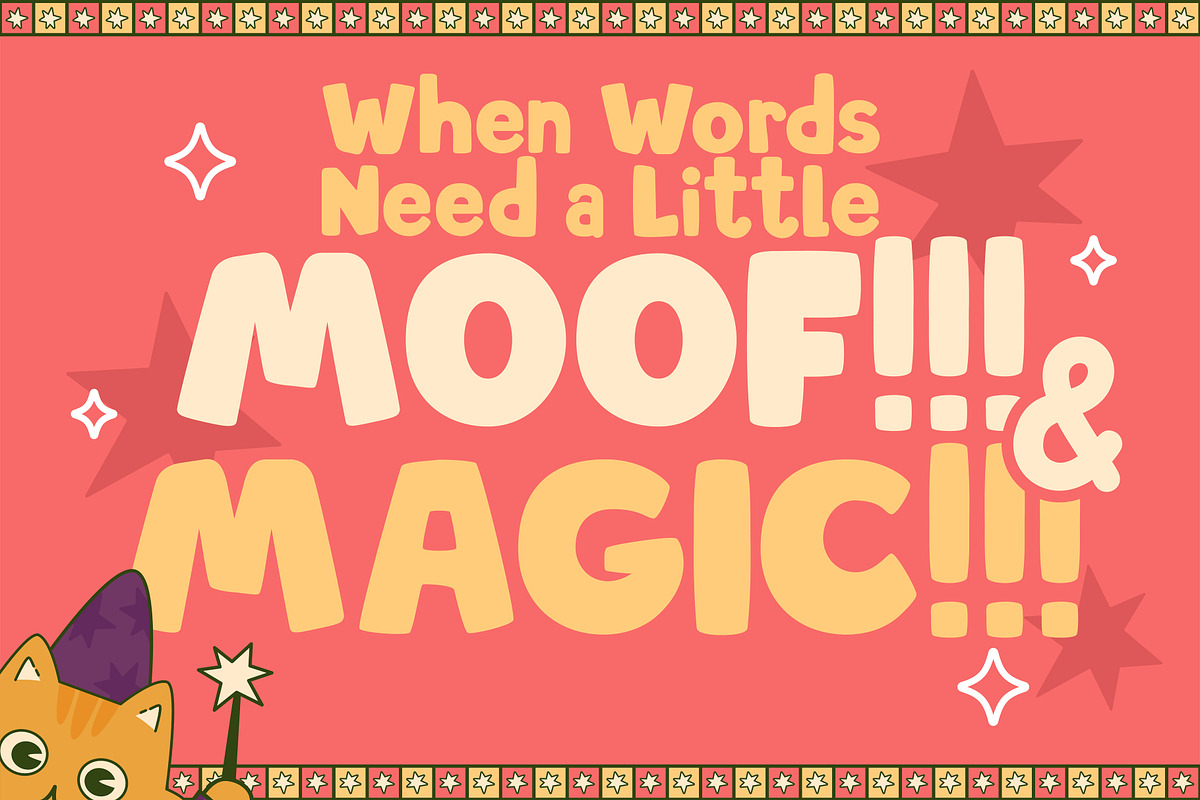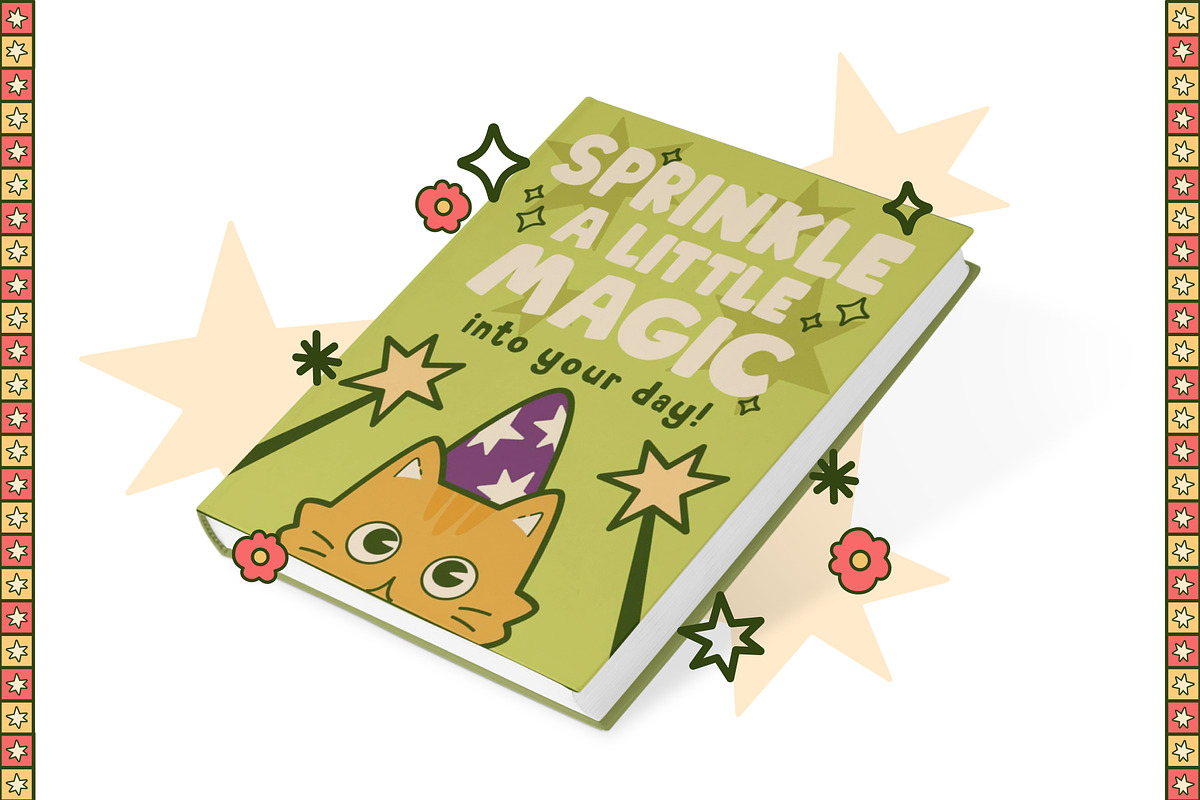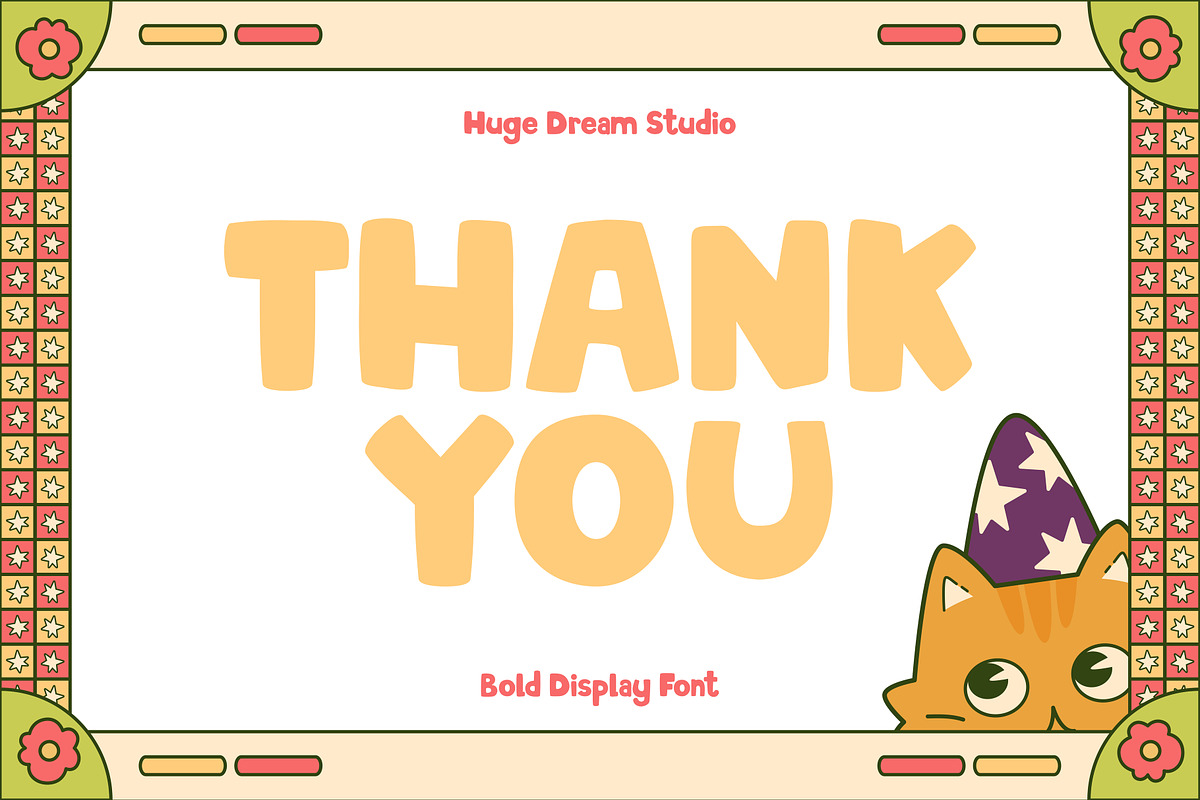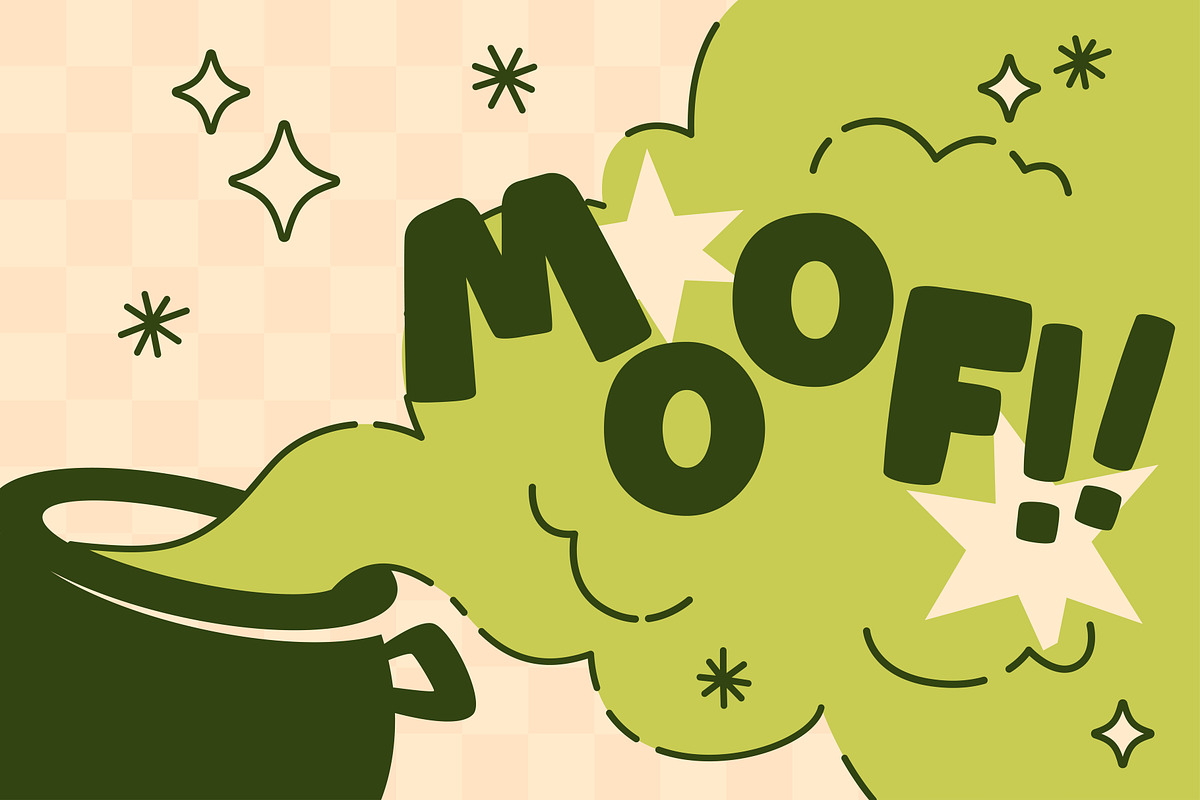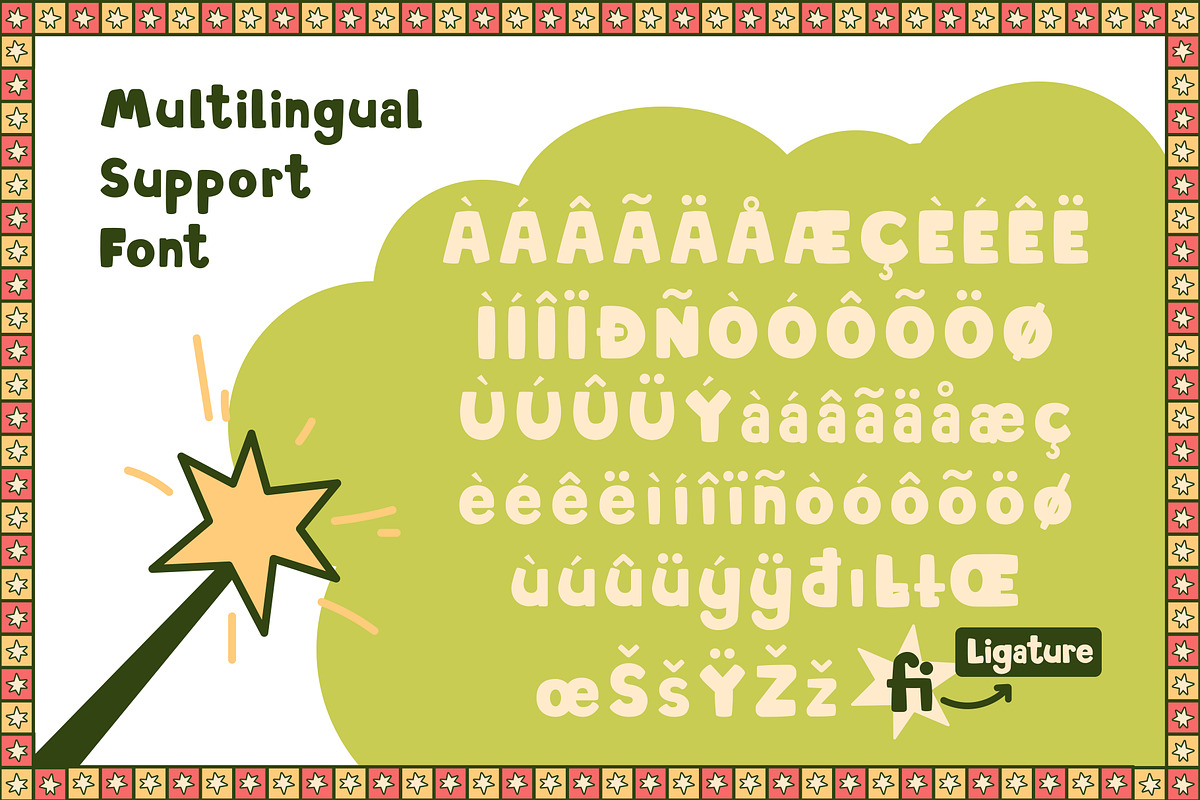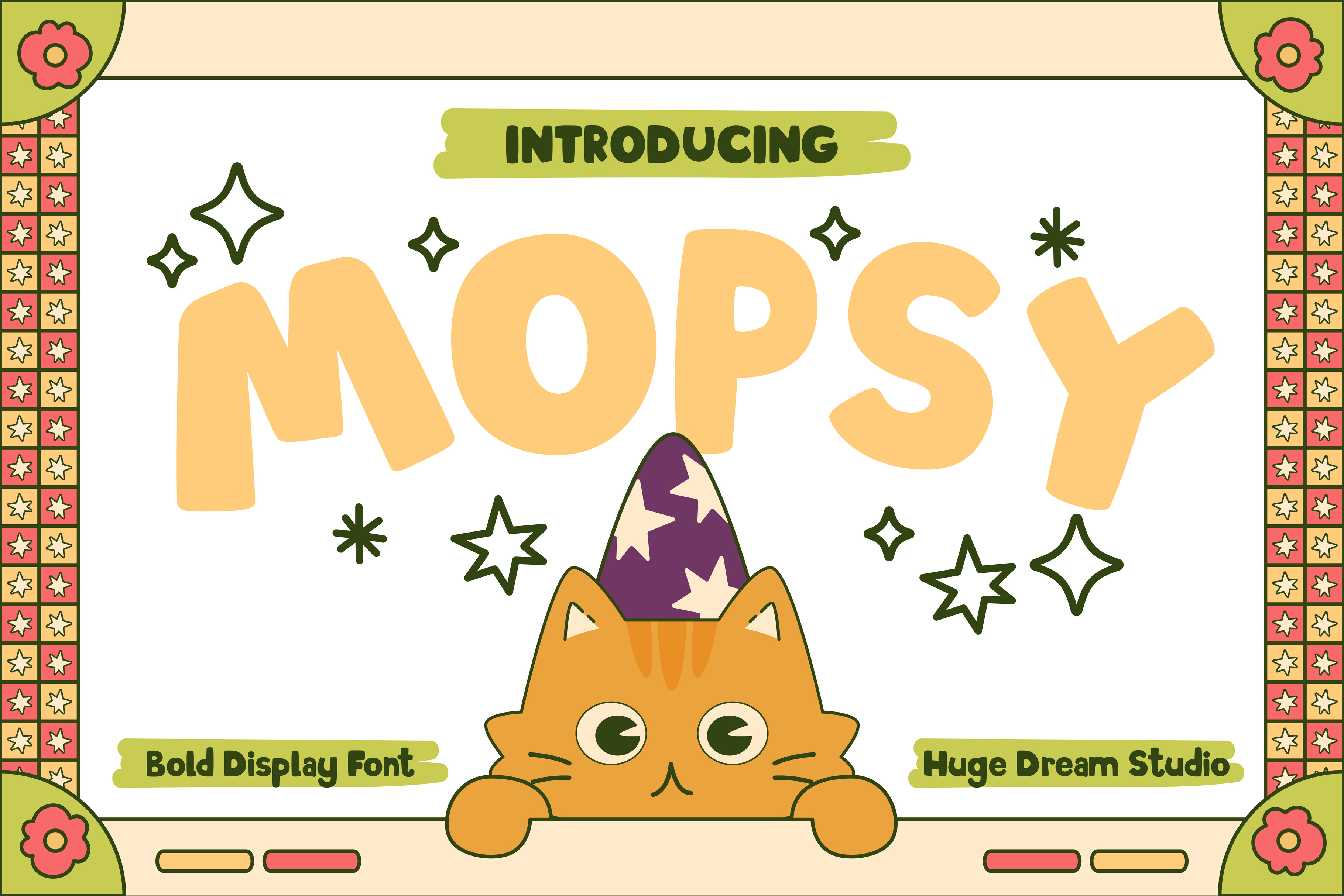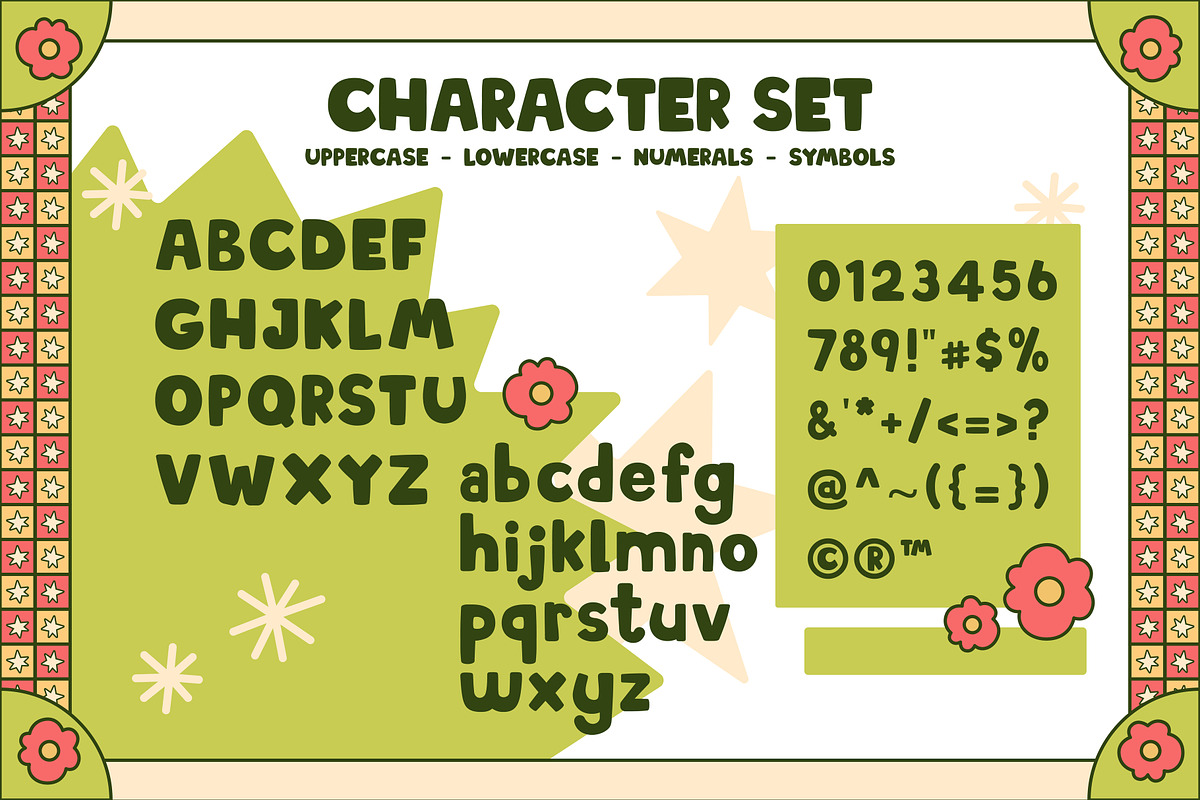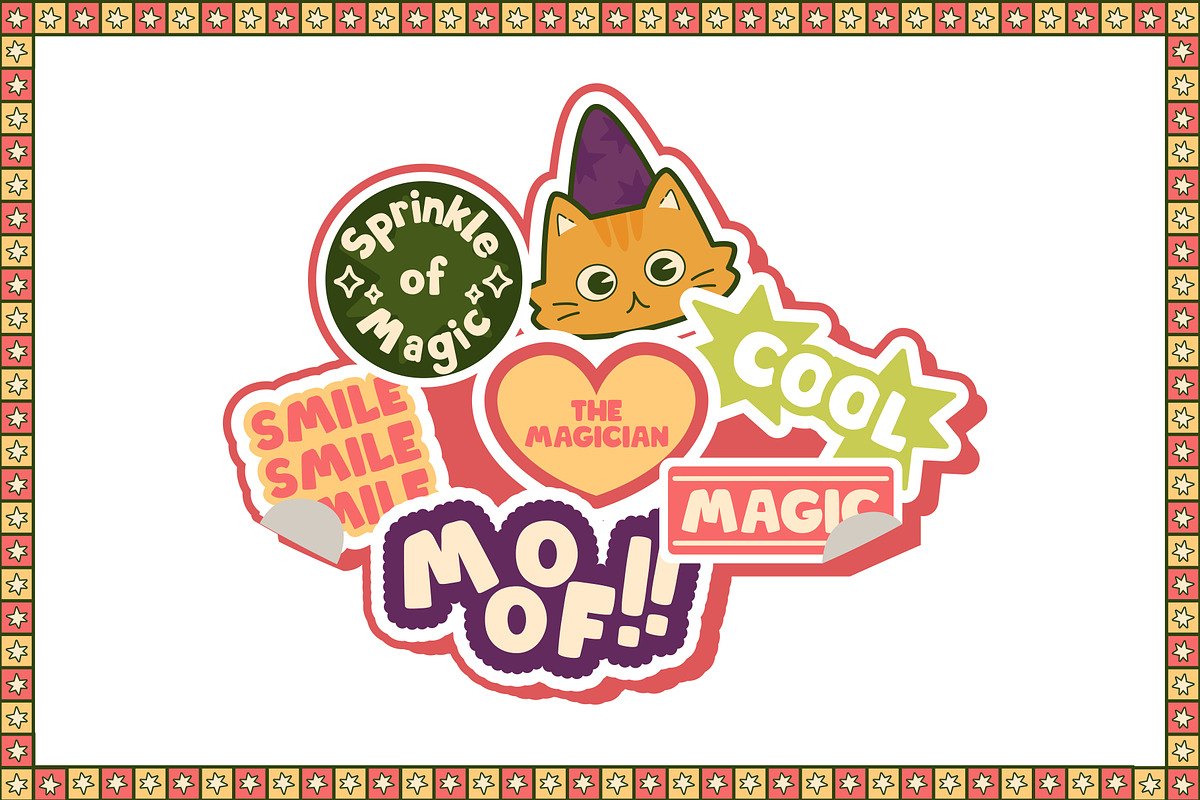
Mopsy - Bold Display Font
Mopsy is a cheerful and lively font designed to bring stories to life! Perfect for Children’s Book, this bold and playful typeface captures the magic of imagination with its friendly curves and whimsical charm. Whether it’s a tale about adventurous animals or enchanting fairylands, Mopsy adds a splash of fun and creativity to every page. It's clear and easy-to-read style makes it ideal for young readers, while its delightful design sparks joy for storytellers and designers alike. Let Mopsy Bold Display be your go-to font for spreading smiles and creating unforgettable childhood memories!
Mopsy features:
- Character Set (Uppercase & Lowercase)
- Punctuation & Numbers
Elevate and explore the design possibilities with this Children’s Book Design Font!